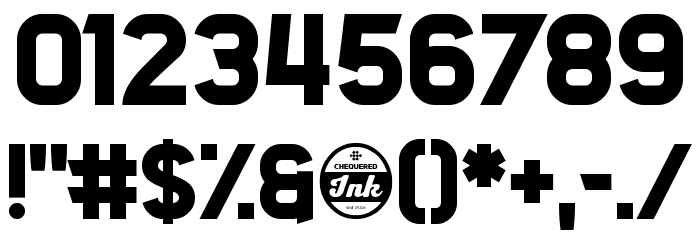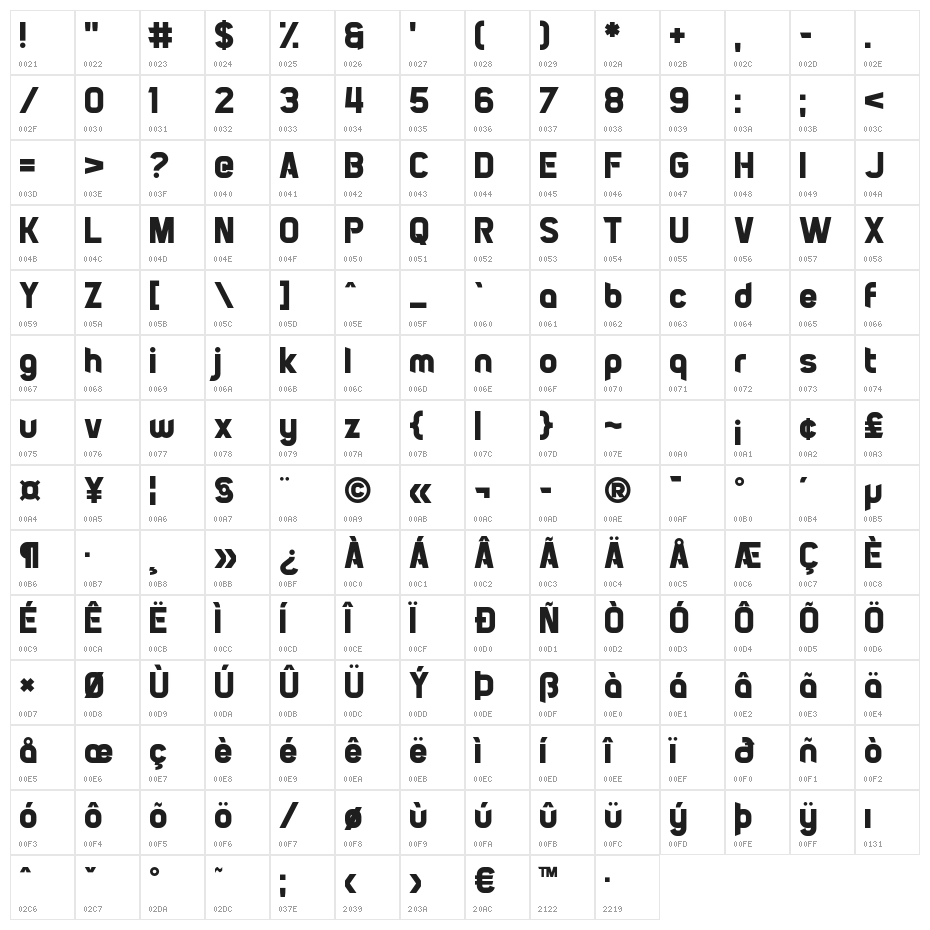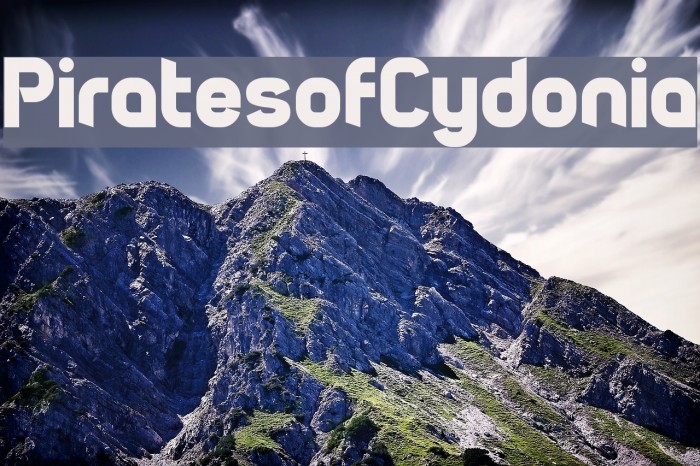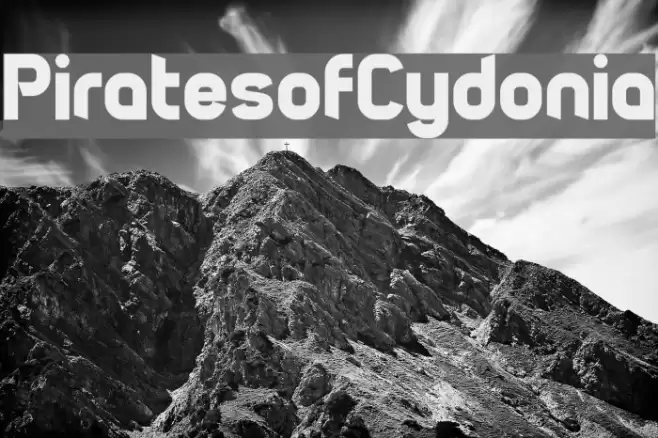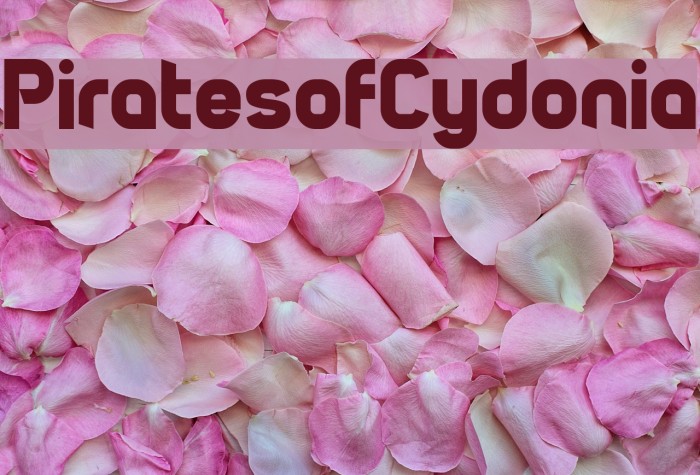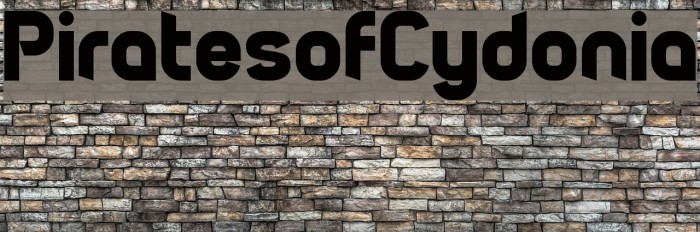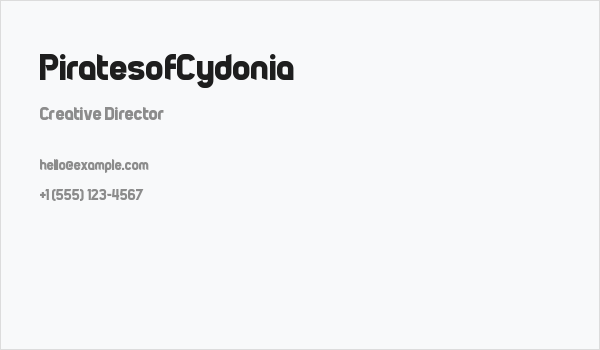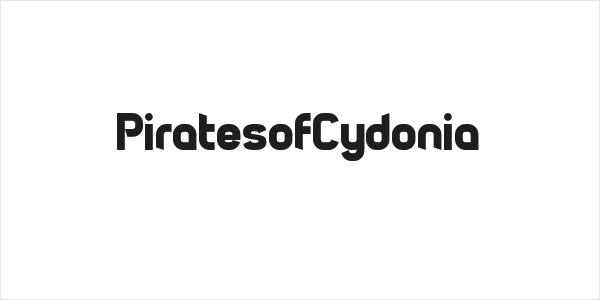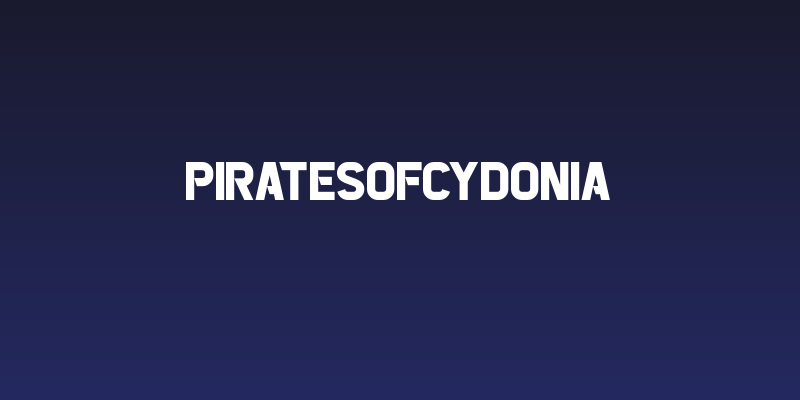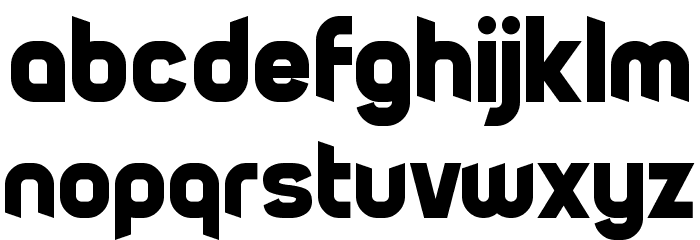
PiratesofCydonia Font
PiratesofCydonia Description
This bold and impactful typeface features a strong, geometric design with a modern flair. The uppercase letters are robust and commanding, while the lowercase letters maintain a consistent weight and style, ensuring readability. The numerals are clear and well-proportioned, complementing the overall aesthetic. Special characters are designed with the same boldness, making them stand out effectively. The font's design is versatile, suitable for various applications where a strong visual presence is needed.